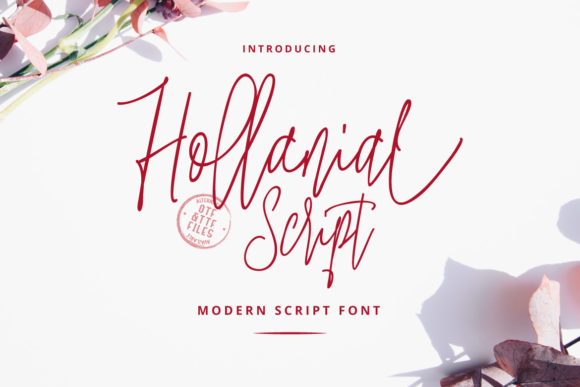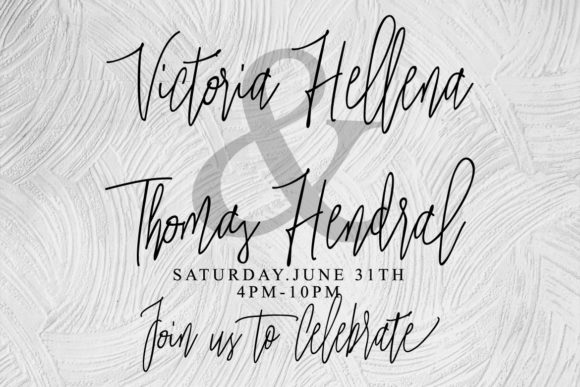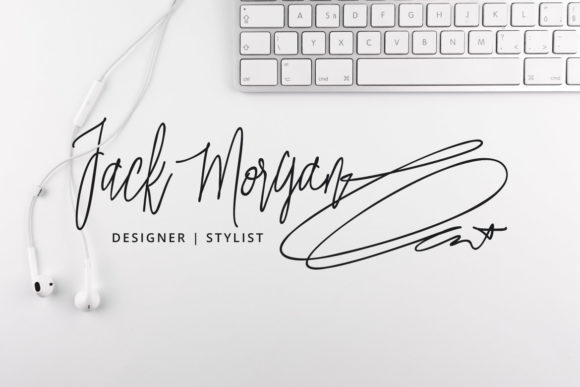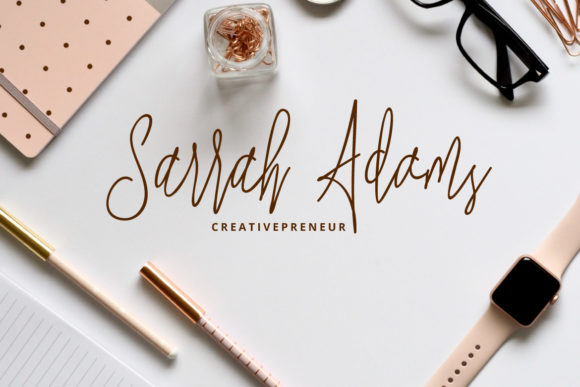
Hollanial Font
About Hollanial Font
Hollanial is a stylish and modern script font. It is perfect for branding, signature, wedding invitations, promotion, product packaging and more!